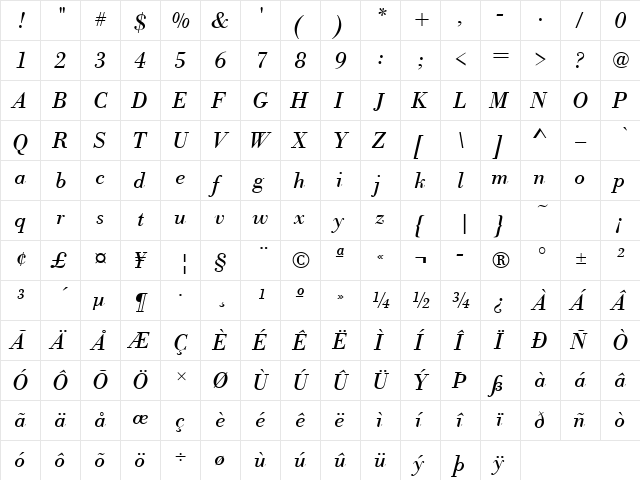
BodoniIbmTReg Italic
Design Context for BodoniIbmTReg Typeface
BodoniIbmTReg takes a measured approach to typography — its balanced proportions and neutral character make it a reliable workhorse for both digital and print work. The dynamic lean of this cut emphasises speed and emphasis in any layout.
Pro Tip: Use BodoniIbmTReg for emphasis, pull quotes, and subheadings where its slanted energy can add rhythm to the layout.